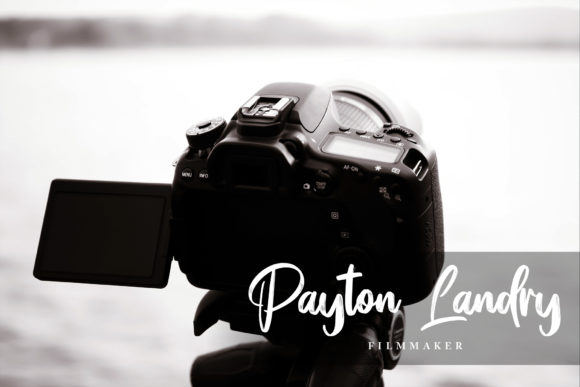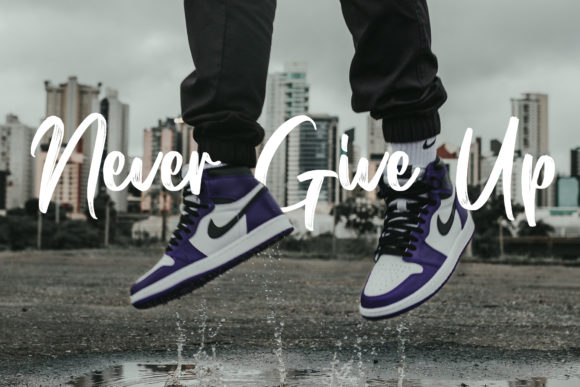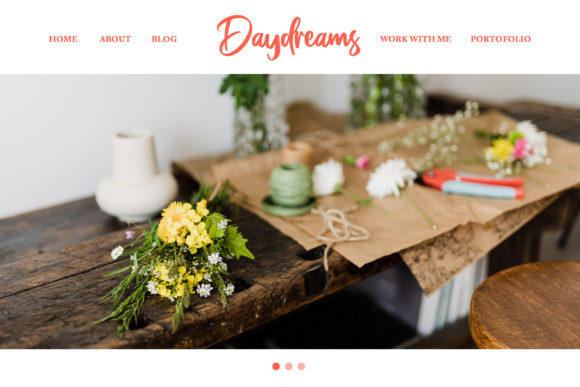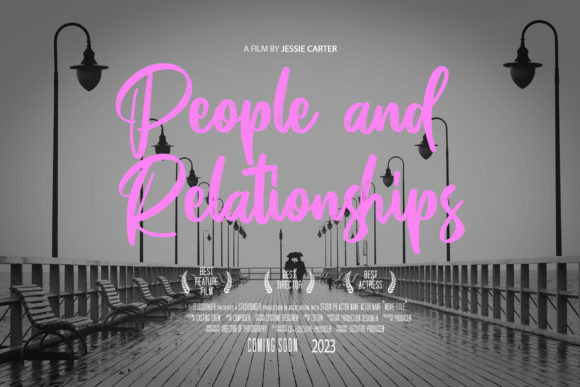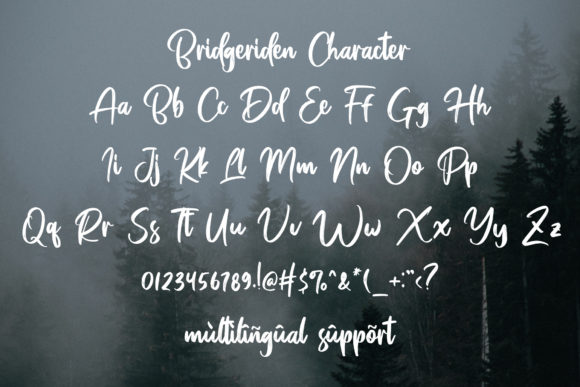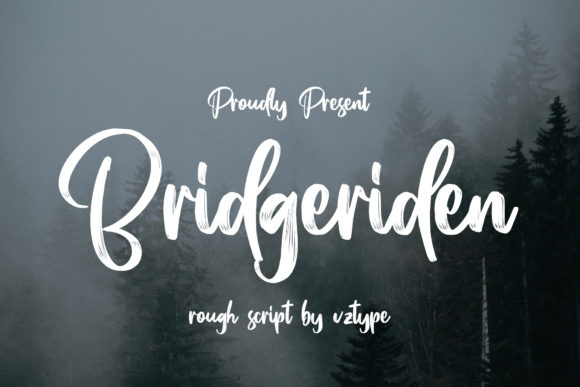
Bridgeriden Font: Elevate Your Designs with a Stylish Script Font
In the world of typography, fonts play a crucial role in conveying the tone and personality of a brand. For designers and crafters looking to add a touch of elegance and sophistication to their work, the Bridgeriden font is an excellent choice. This stunning script font combines attractive curves with a fresh urban edge, making it perfect for a wide range of design applications.
What is Bridgeriden Font?
Bridgeriden is a stylish script font that boasts a unique blend of classic and modern elements. Its attractive curves and fresh urban edge give it a distinctive look that sets it apart from other fonts. Whether you’re looking to create logo designs, brand imagery, handwritten quotes, product packaging, merchandise, or social media posts, Bridgeriden is the perfect choice.
Key Features of Bridgeriden Font
- Attractive Curves: Bridgeriden’s curves are smooth and flowing, giving it a elegant and sophisticated look.
- Fresh Urban Edge: The font’s urban edge gives it a modern and trendy feel, making it perfect for designs that require a bit of attitude.
- Stylish Script: Bridgeriden’s script style makes it perfect for designs that require a touch of elegance and sophistication.
- Versatile: The font is versatile and can be used for a wide range of design applications, from logo designs to social media posts.
Benefits of Using Bridgeriden Font
Using Bridgeriden font in your designs can have numerous benefits. Here are a few:
- Eye-catching Appeal: Bridgeriden’s unique style is sure to grab attention and add an eye-catching appeal to your designs.
- Professional Look: The font’s elegant and sophisticated look makes it perfect for designs that require a professional touch.
- Time-saving: With Bridgeriden, you can create stunning designs in no time, thanks to its versatility and ease of use.
- Unique Identity: The font’s distinctive style can help you create a unique identity for your brand, setting you apart from the competition.
Design Applications for Bridgeriden Font
Bridgeriden font is perfect for a wide range of design applications, including:
- Logo Designs: Create stunning logos that make a lasting impression with Bridgeriden.
- Brand Imagery: Use Bridgeriden to create brand imagery that reflects your brand’s personality and tone.
- Handwritten Quotes: Add a touch of elegance and sophistication to your handwritten quotes with Bridgeriden.
- Product Packaging: Make your product packaging stand out with Bridgeriden’s unique style.
- Merchandise: Create stunning merchandise, such as t-shirts, mugs, and more, with Bridgeriden.
- Social Media Posts: Elevate your social media posts with Bridgeriden’s stylish script font.
Tips for Using Bridgeriden Font
Here are a few tips for using Bridgeriden font:
- Experiment with Different Sizes: Bridgeriden looks great in various sizes, so experiment with different sizes to find the one that works best for your design.
- Pair with Other Fonts: Pair Bridgeriden with other fonts to create a unique and visually appealing design.
- Use in Combination with Images: Use Bridgeriden in combination with images to create a stunning design that grabs attention.
In conclusion, Bridgeriden font is a stylish script font that combines attractive curves with a fresh urban edge, making it perfect for a wide range of design applications. Its versatility, elegance, and sophistication make it a great choice for designers and crafters looking to add a touch of style to their work. With Bridgeriden, you can create stunning designs that make a lasting impression.